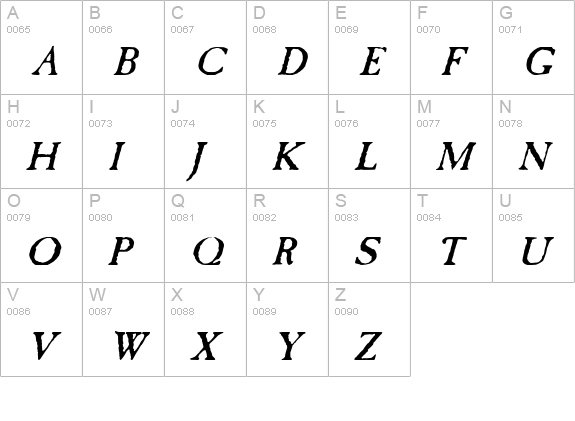
Caslon Antique Italic Font Details
Caslon Antique Italic is a distinctive, italic variant in the Caslon typeface family \xE2\x80\x94 well suited to design and typography projects.
Caslon Antique Italic is a classic and elegant font that exudes sophistication and charm. Its gracefully slanted italics add a touch of flair to any design, making it perfect for projects that require a touch of vintage or historical elegance. The delicate curves and fine detailing of Caslon Antique Italic make it a versatile choice for a wide range of applications, from invitations and greeting cards to branding and editorial design. This timeless font is now available for free download at FontsMarket.com, allowing designers and creatives to access its beauty and versatility without any cost. Whether you're working on a personal project or a professional endeavor, Caslon Antique Italic is sure to elevate your designs and leave a lasting impression on your audience. Explore the endless possibilities of this exquisite font and add a touch of timeless elegance to your next creative endeavor.